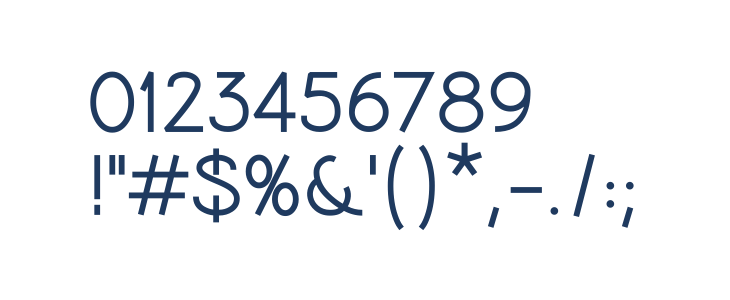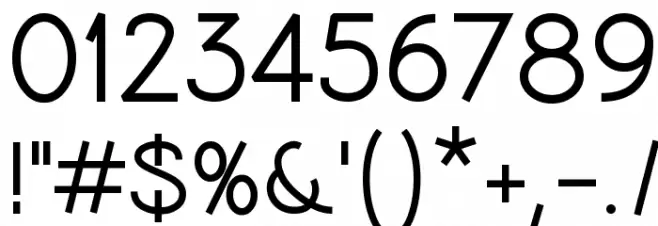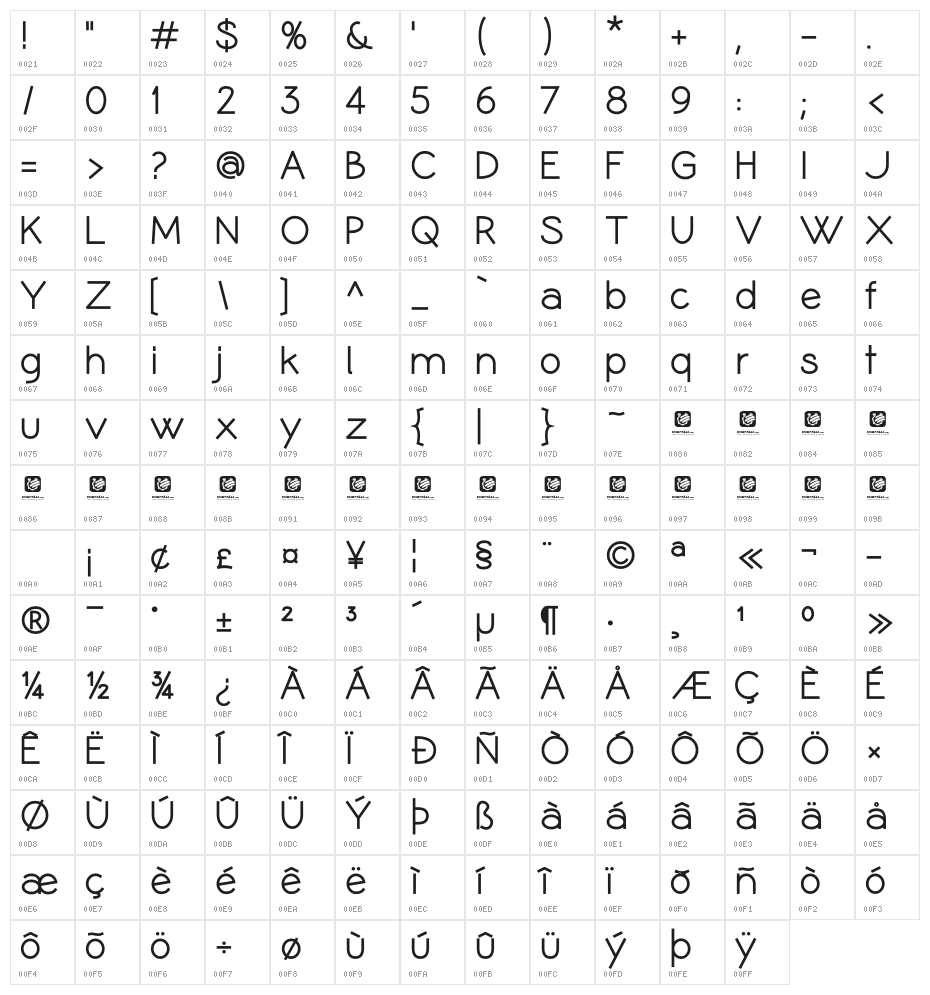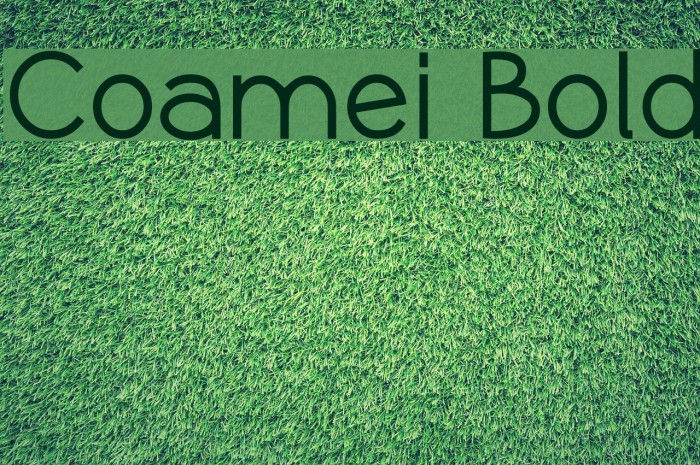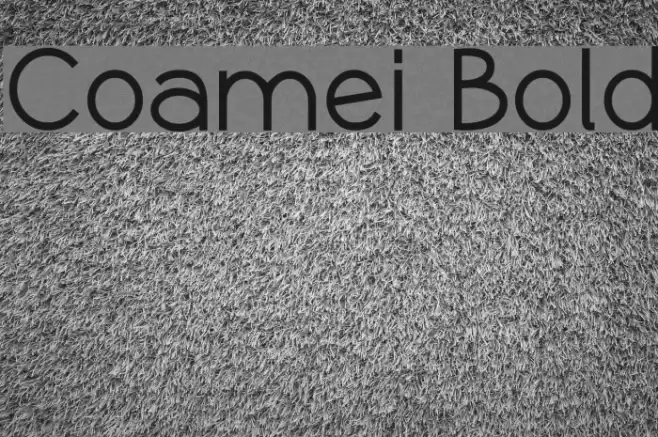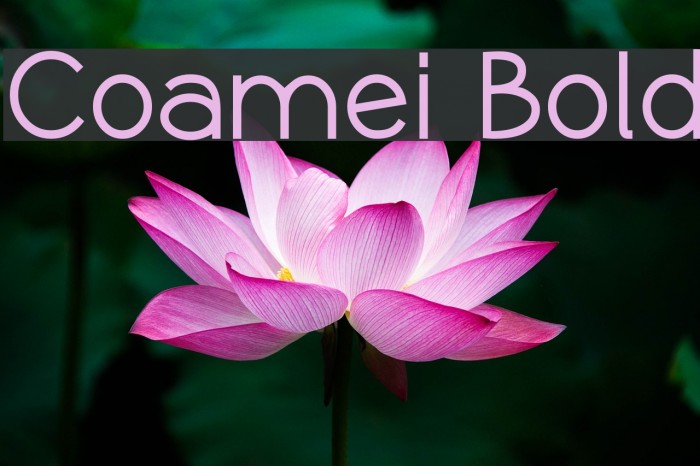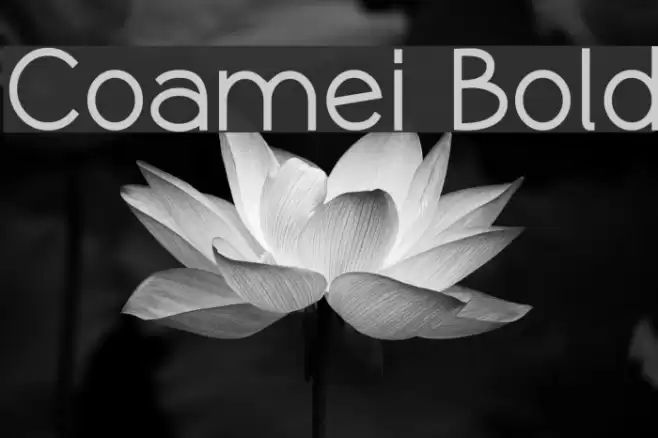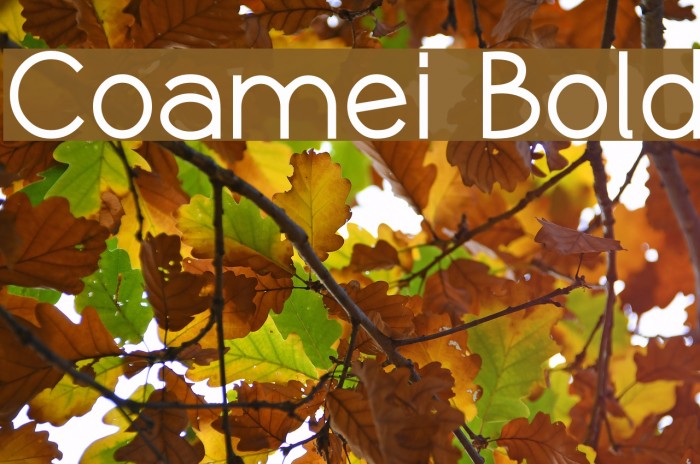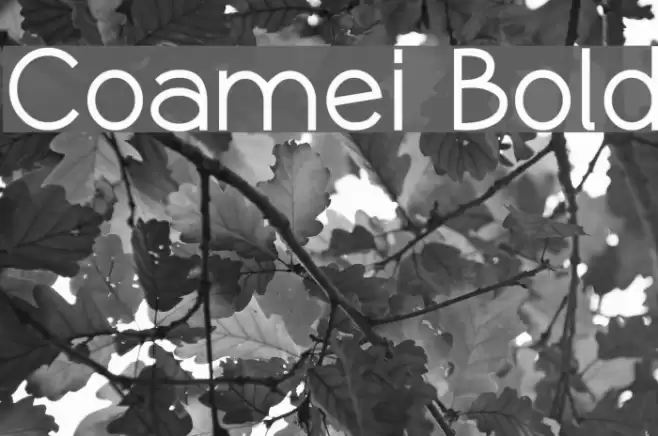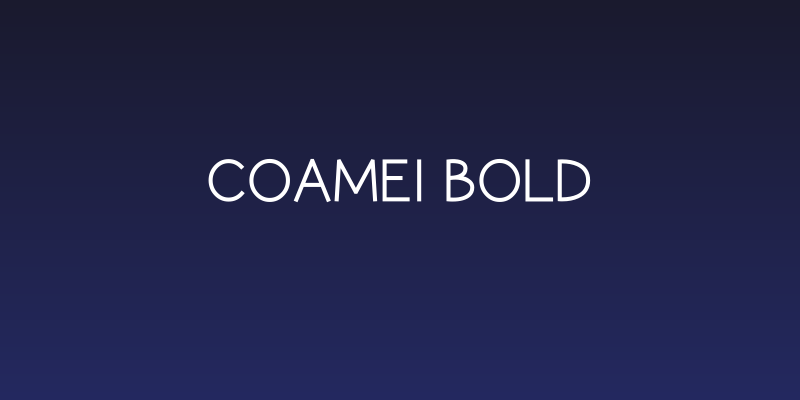
Coamei Bold Font
Coamei Bold Description
This font exhibits a clean and modern sans-serif style, characterized by its geometric shapes and uniform stroke widths. The uppercase letters are bold and assertive, while the lowercase letters maintain a consistent and harmonious flow. The numerals are clear and easily distinguishable, making them suitable for various applications. The special characters are well-integrated, maintaining the overall aesthetic of the font. Its simplicity and clarity make it versatile for both digital and print media.
| Use Case | Headlines, Logos, Web design |
| Proposed Projects | Ideal for branding, advertising, web design, and editorial projects where clarity and modernity are essential. |